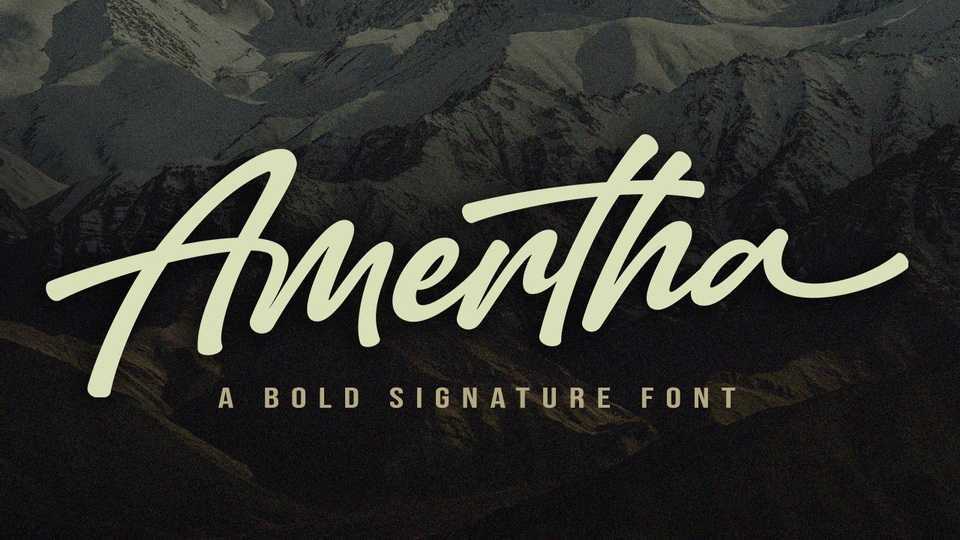
Download Amertha font, a wild and fast logotype script that has beautiful, signature style brush strokes. The expressive movement of the letters creates a feeling of vitality and will grab the attention the viewer.
Designer: Subectype